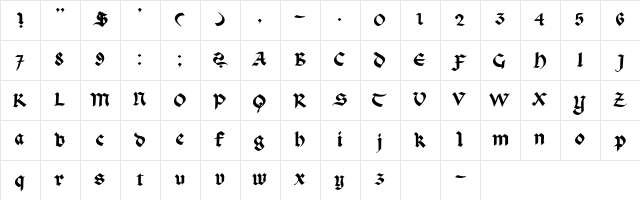
CallifontsA03PostScript Regular
Design Context for CallifontsA03PostScript
CallifontsA03PostScript flows with the natural rhythm of handwritten lettering, making it ideal for designs that call for warmth and personal expression.
Font Pairing: Combine CallifontsA03PostScript with a simple geometric sans for maximum contrast - the tension between flowing curves and clean structure is a classic typographic pairing.
Pro Tip: Use CallifontsA03PostScript for short runs of text - names, titles, or taglines. Extended body copy in script faces tires the eye quickly.